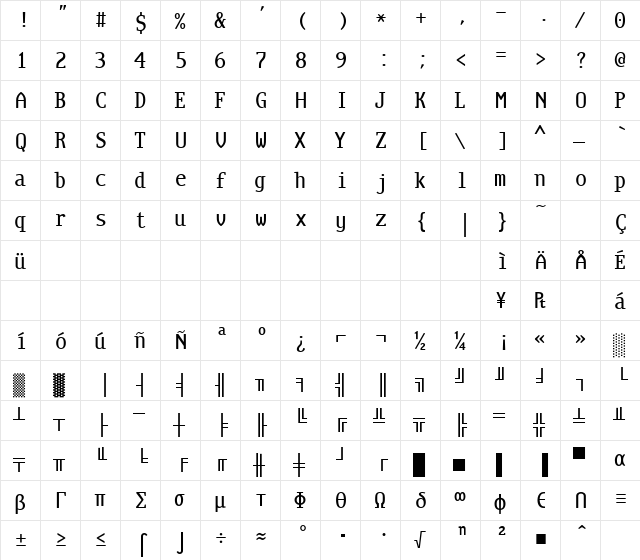
NFO Font Regular
Design Context for NFO Font Typeface
NFO Font offers clean, dependable letterforms without strong stylistic allegiance, making it a practical choice for designers who need flexibility.